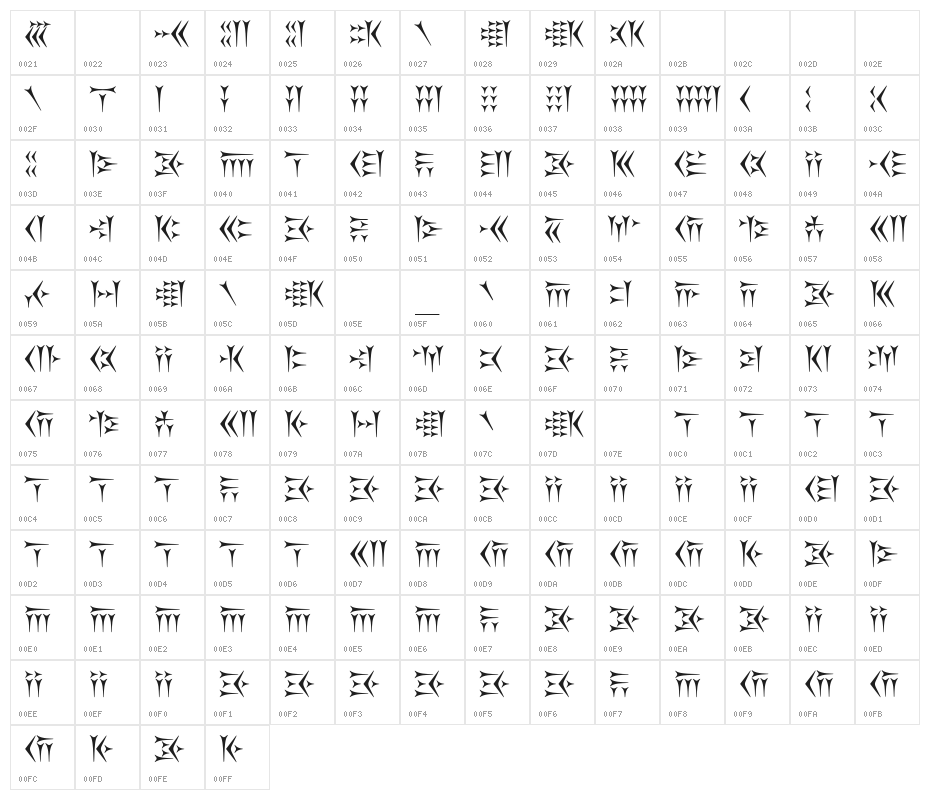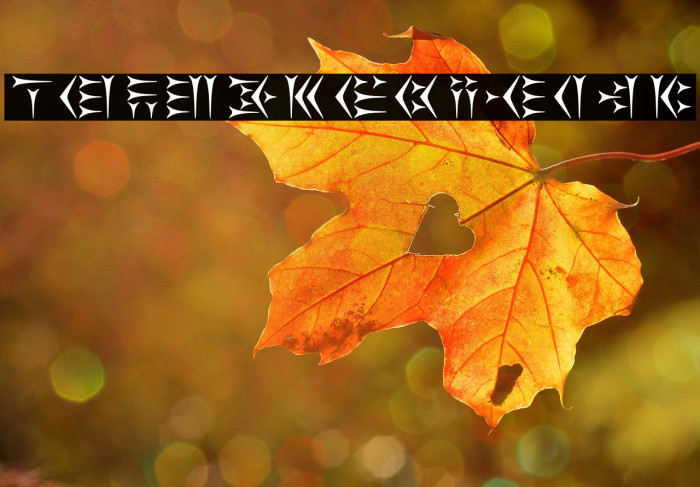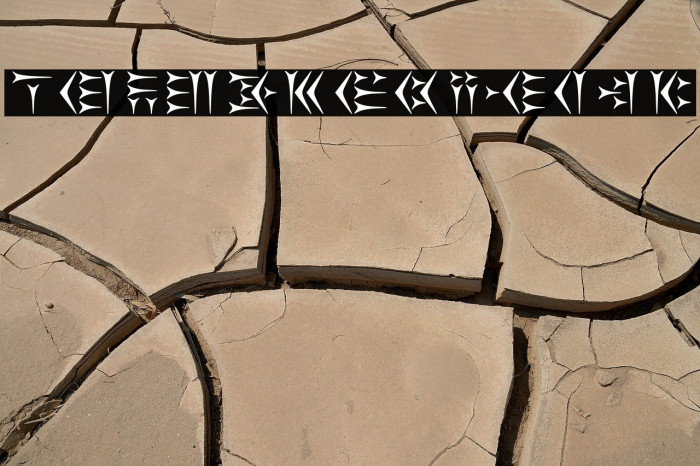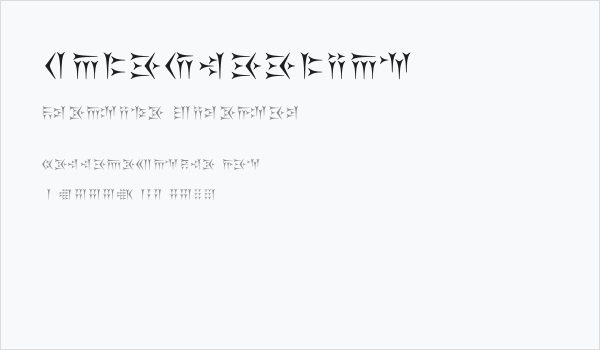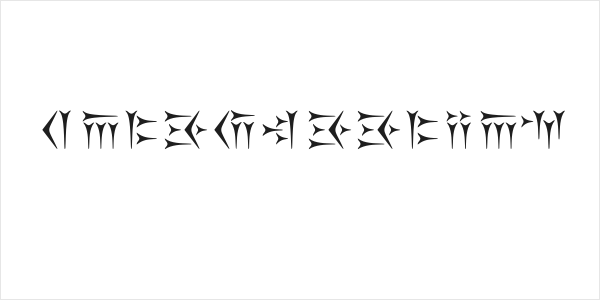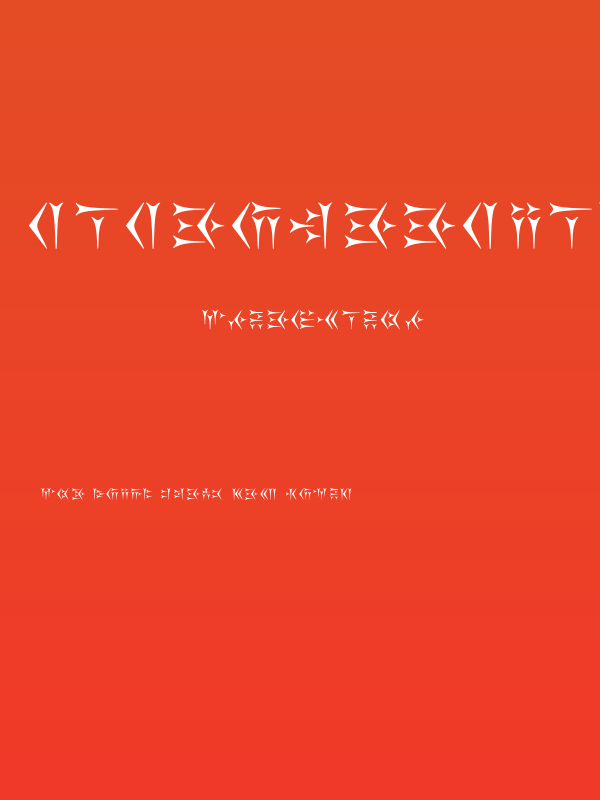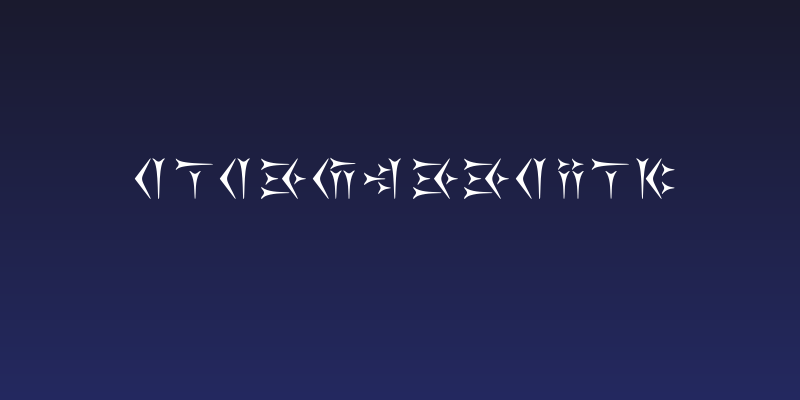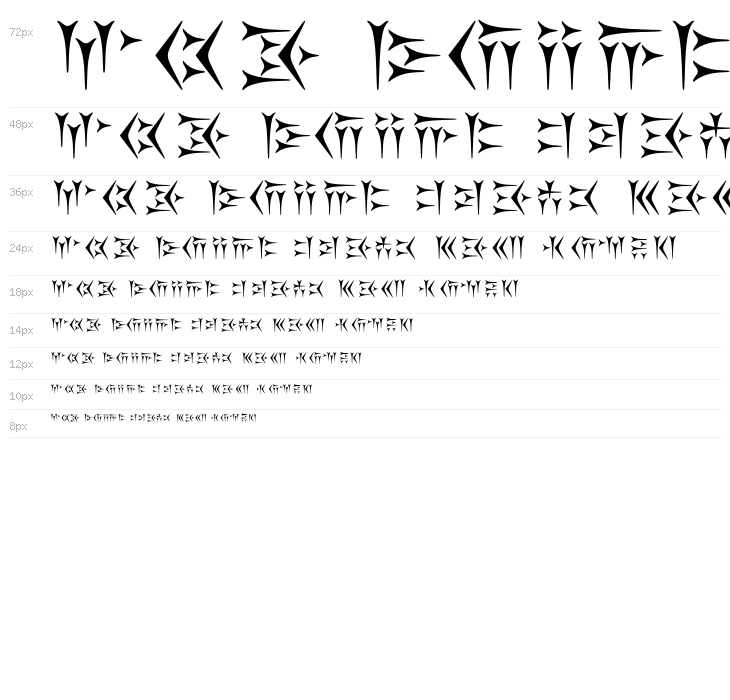
Kakoulookiam Font
Kakoulookiam Description
This font features a highly decorative and angular style, reminiscent of ancient scripts or tribal markings. Each character is composed of sharp, pointed edges and intricate geometric patterns, giving it a distinct and bold appearance. The design is complex, with a focus on symmetry and balance, making it visually striking. The characters are unique and may not be easily recognizable as traditional Latin letters, adding to its exotic and mysterious allure. This font is ideal for projects that require a touch of the unusual or the dramatic, such as fantasy-themed designs or cultural exhibitions.
Use CaseLogos, Headlines
Proposed ProjectsFantasy book covers, cultural exhibitions, themed event posters, video game graphics.